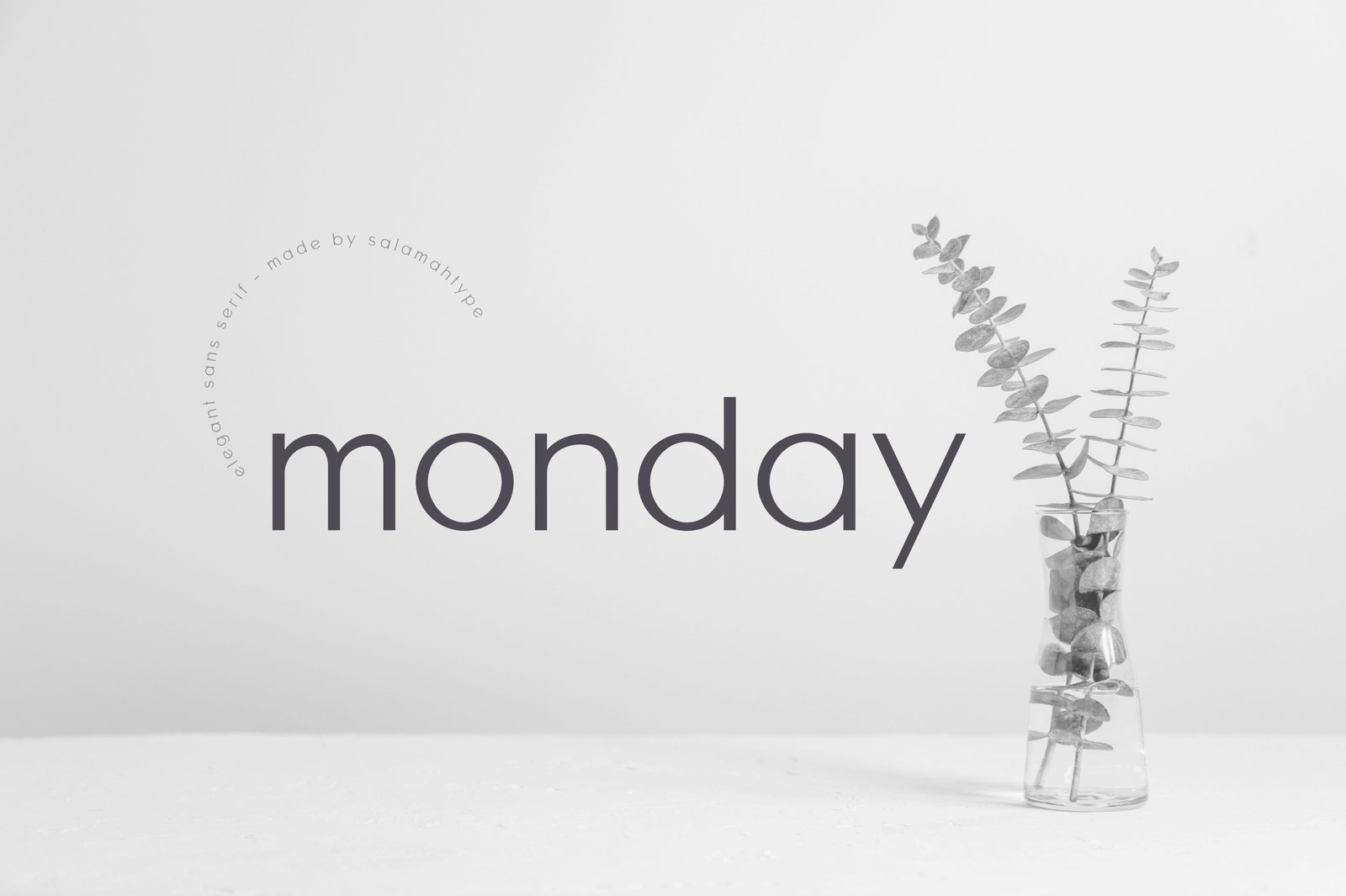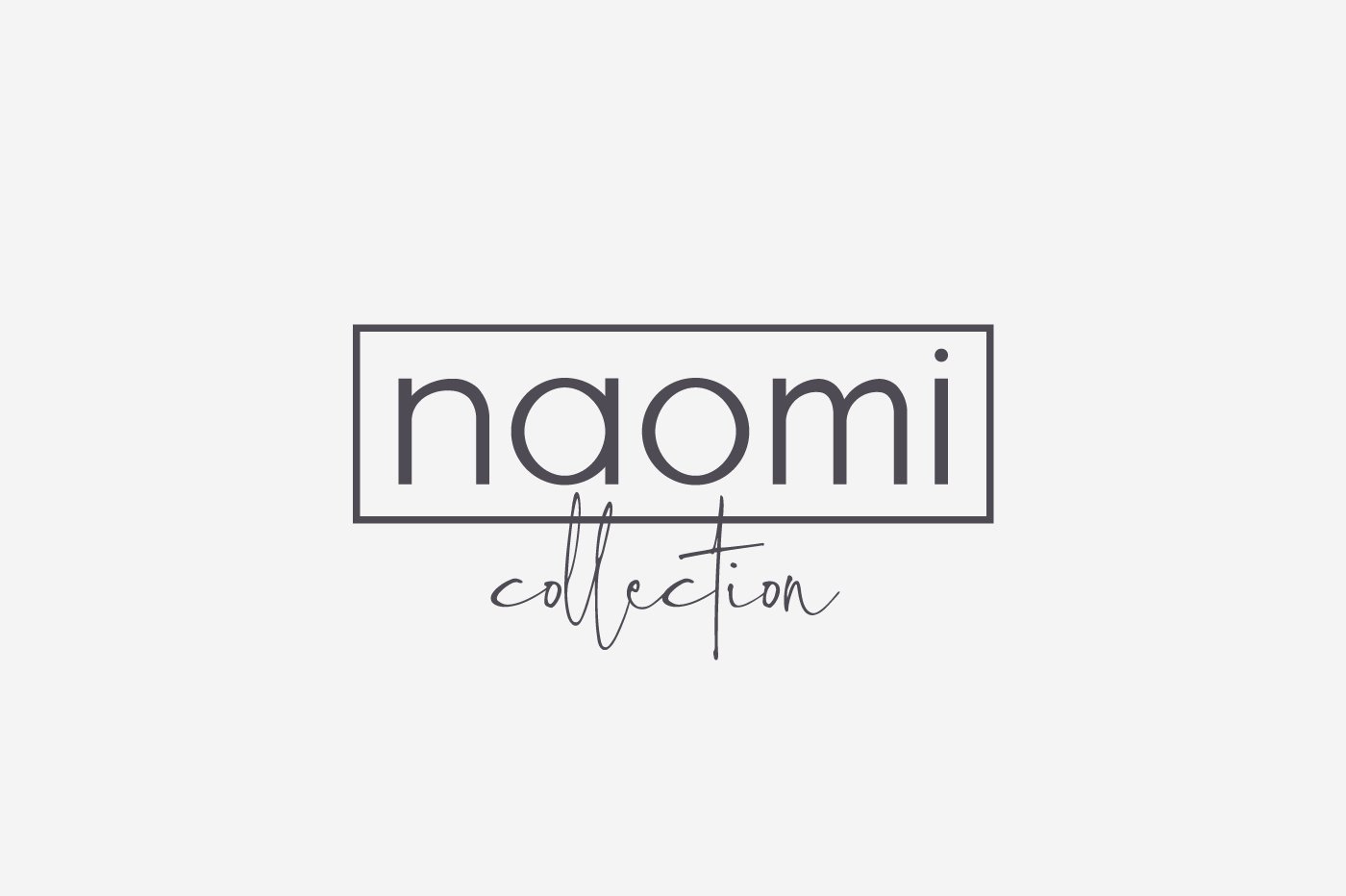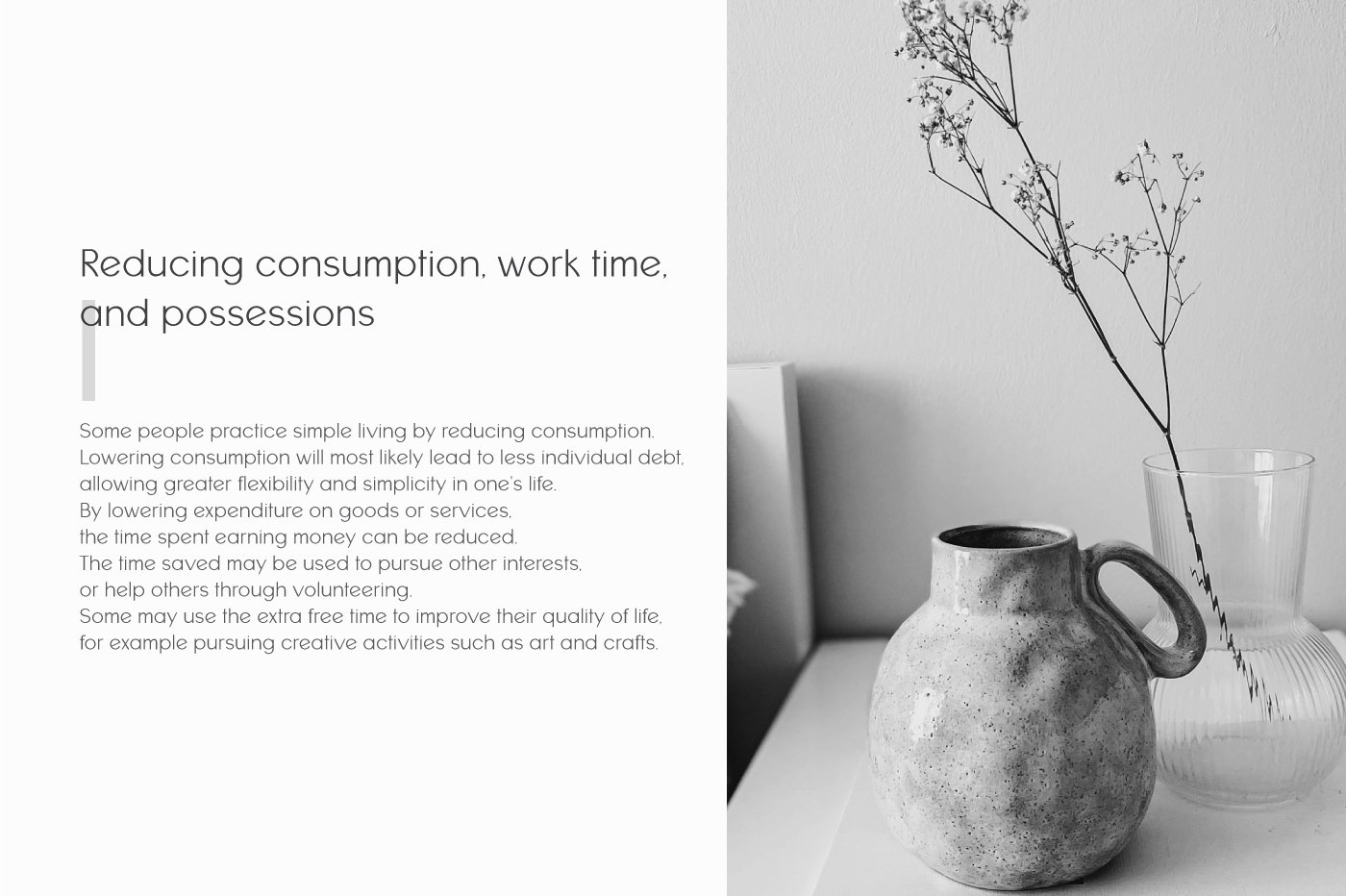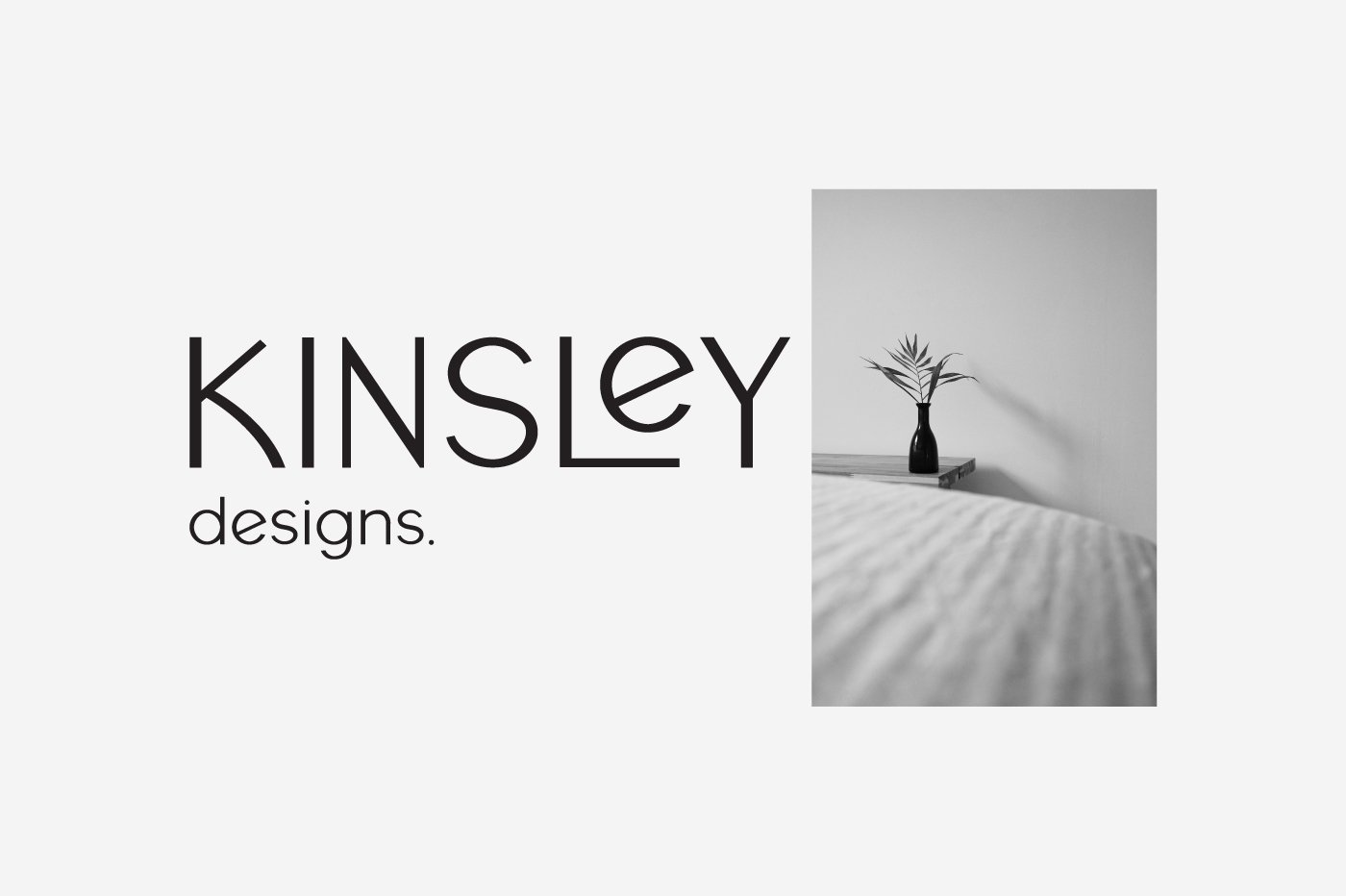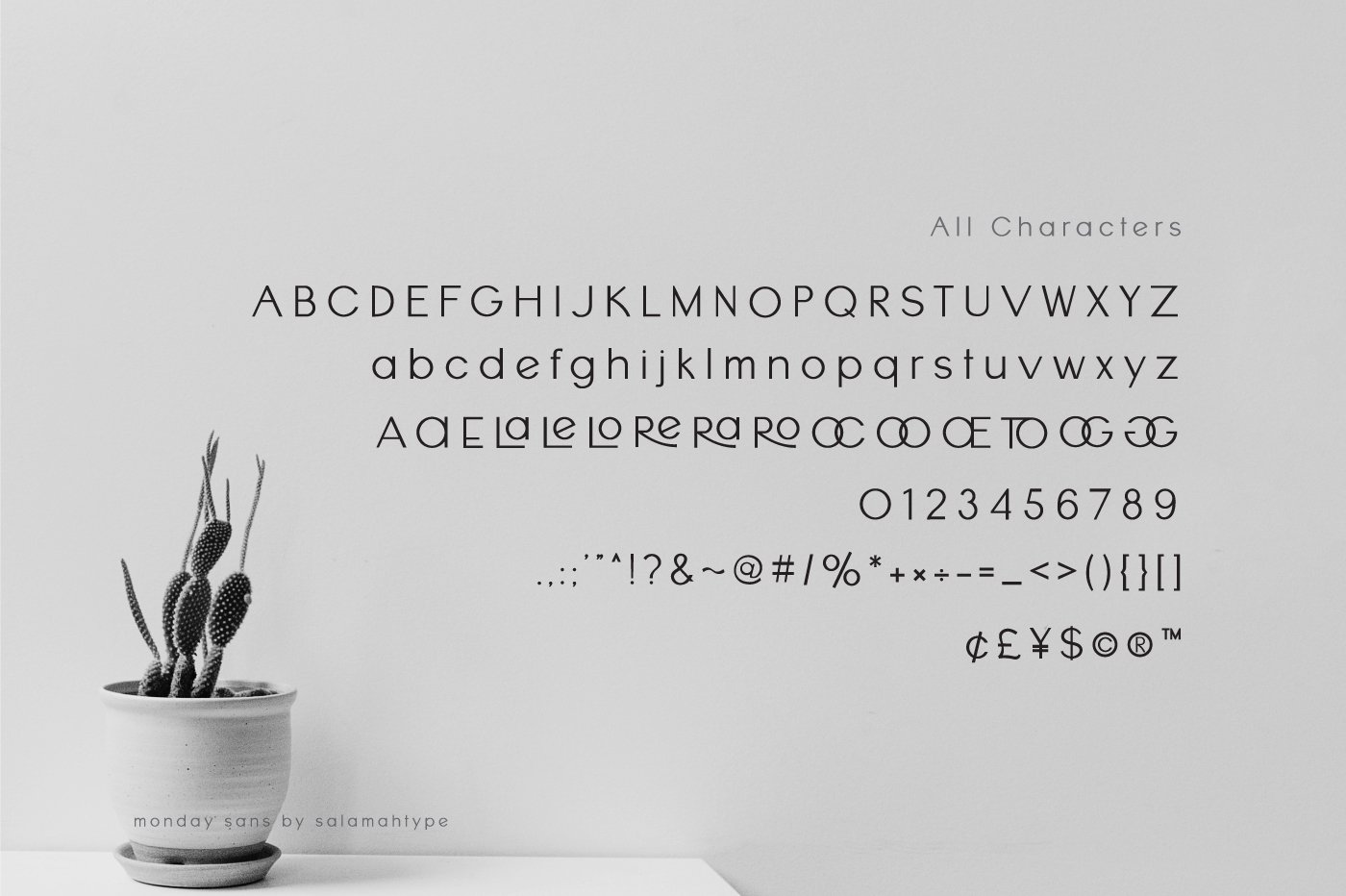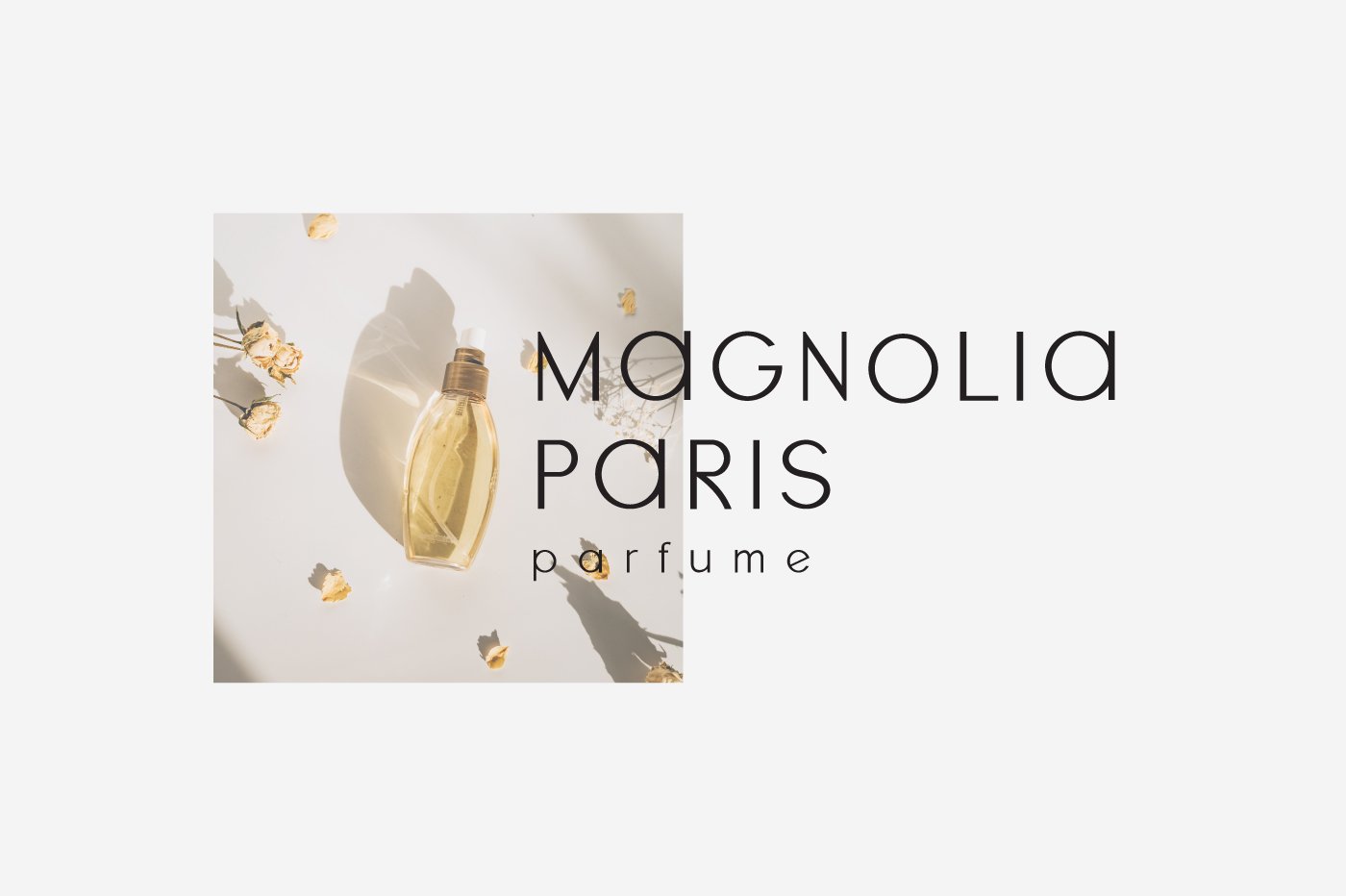
Monday Sans
Monday sans is a clean sans serif font. This font perfect for branding projects, logos, social media posts, advertisements, product packaging, wedding invitations, product designs, label, photography, watermark, stationery and so much more.
Features :
• Standard Glyphs
• Ligature
• Alternate